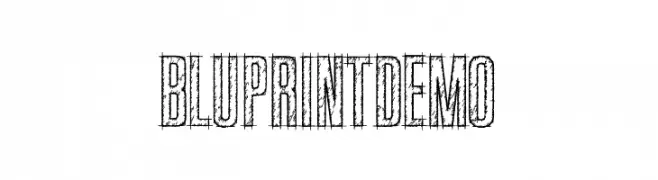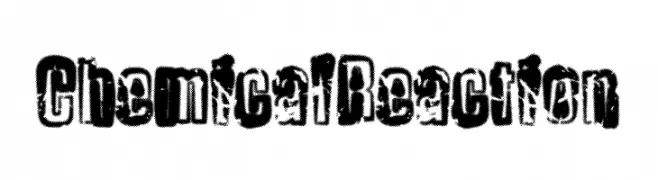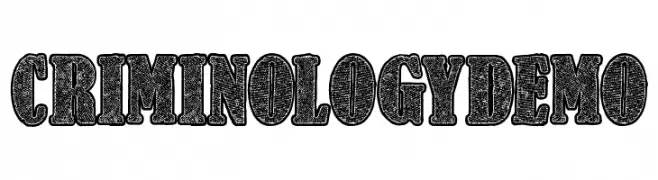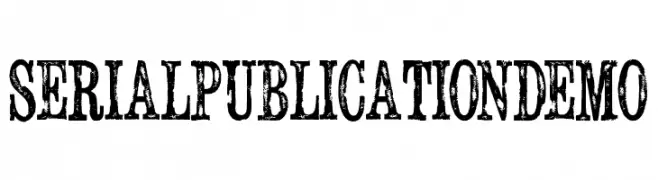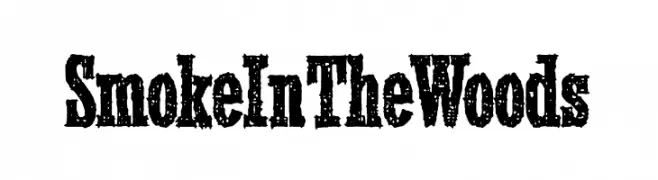
A bold, textured font with a vintage, distressed style.
A bold, distressed font with a vintage, textured style.
A bold, geometric decorative font with square outlines and star embellishments.
A sketch-like, blueprint-inspired font with a hand-drawn, textured appearance.
A bold, textured font with a vintage halftone pattern.
A bold, distressed font with a grunge, spray-painted effect.
A bold, distressed font with a rugged, vintage appearance.
A bold, distressed font with a vintage, grunge aesthetic.
A tall, narrow, hand-drawn font with a whimsical and organic feel.
A bold, distressed font with a grunge effect, perfect for impactful designs.